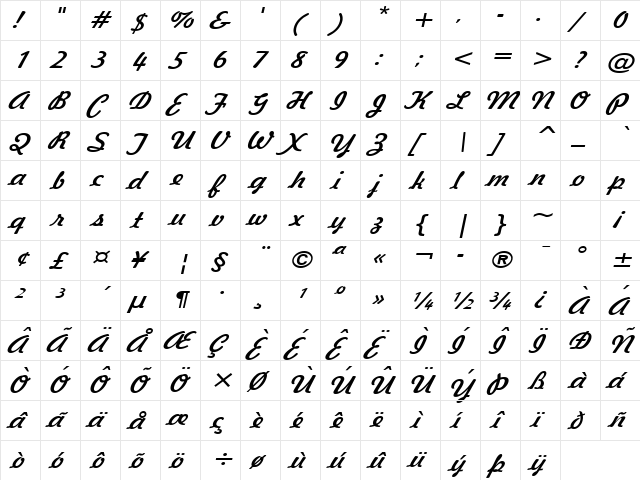
Jott 43 Wide Italic
Design Context for Jott 43 Wide Typeface
Jott 43 Wide takes a measured approach to typography — its balanced proportions and neutral character make it a reliable workhorse for both digital and print work. Its italic angle brings a sense of urgency and motion to the letterforms.